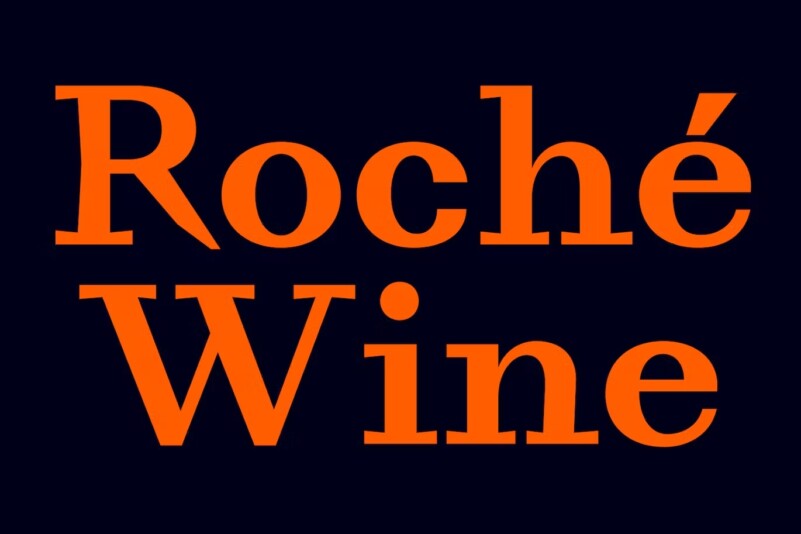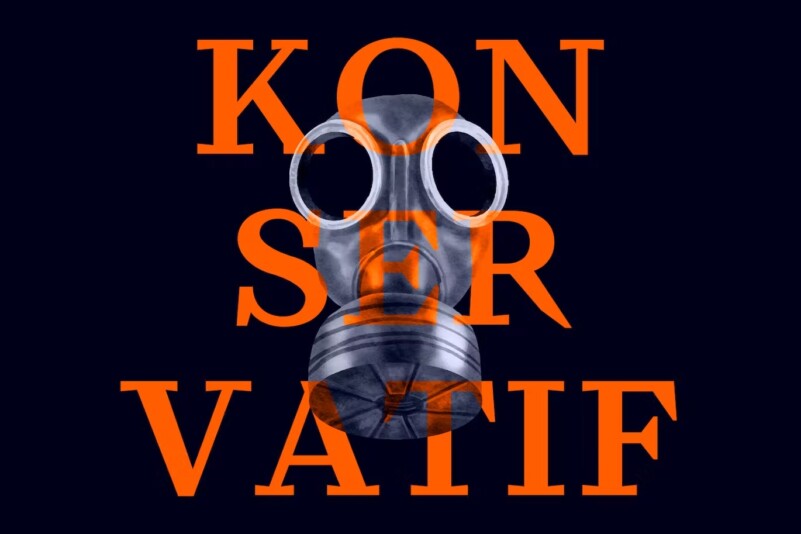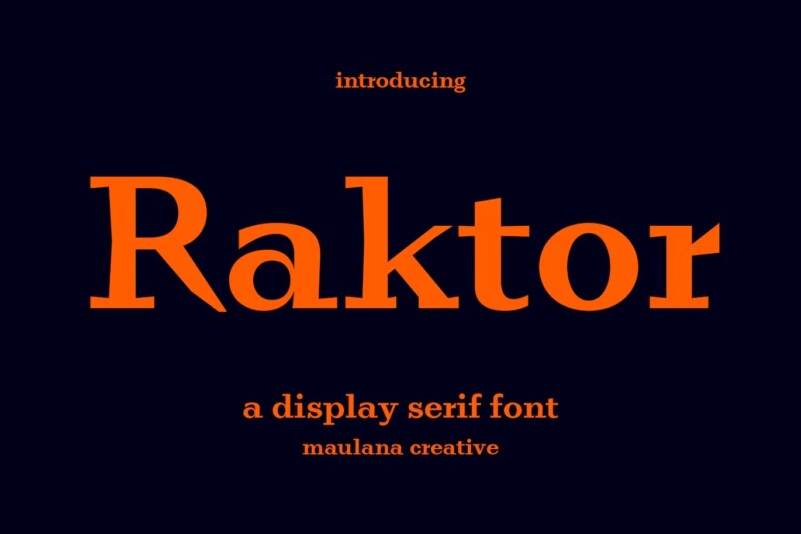
Raktor Serif Display Font
Raktor is a modern Display serif font. With medium low contrast stroke, fun character with a bit of ligatures and alternates. To give you an extra creative work. Raktor font support multilingual more than 100+ language. This font is good for logo design, Social media, Movie Titles, Books Titles, a short text even a long text letter and good for your secondary text font with script or serif. Make a stunning work with Raktor font.